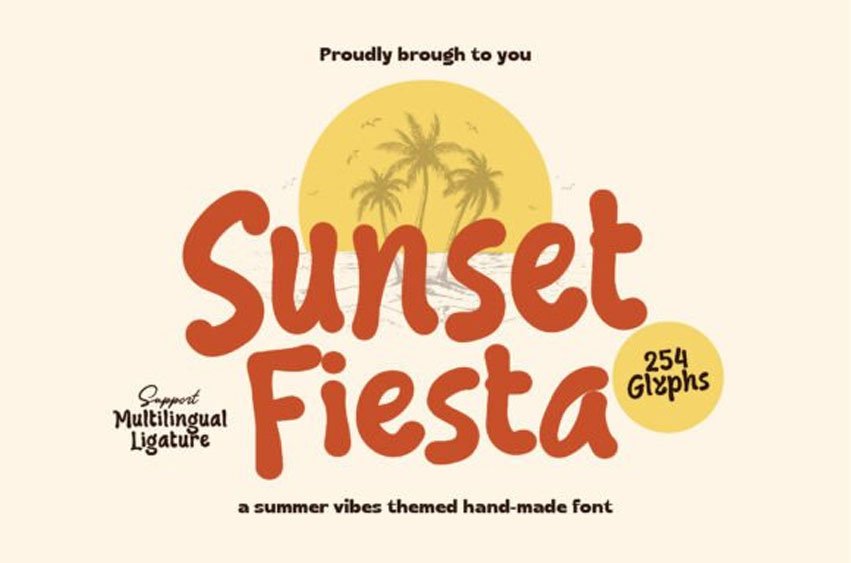
Sunset Fiesta Font is a bold, hand-crafted display font with a warm tropical personality. Inspired by retro summer culture, golden sunsets, and beachside vibes, this typeface is made for designs that need to feel fun, friendly, and full of life.
With 254 glyphs, multilingual support, and ligature features, it’s a versatile choice for a wide range of creative projects.
Perfect for:
✓ Logos & brand identity
✓ Posters & flyers
✓ Packaging design
✓ Social media content
✓ Menus & signage
✓ T-shirts & merchandise
✓ DIY crafts & print-on-demand